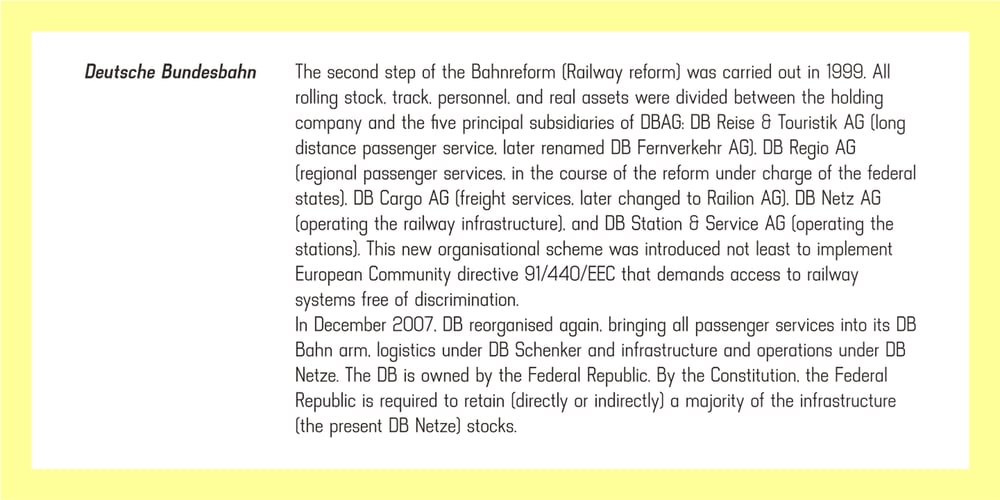
Luzern Font Family was designed by Gumpita Rahayu and published by Gumpita Rahayu. Luzern contains 10 styles and family package options. Inspired by the most common grotesque heights and boxed sans serif typefaces, Luzern Typefaces was built with low-mid contrast sans serif and was designed in quite tall caps height and lower x-height which represents the flavor of the dynamic typefaces and is subtle for the display typefaces. The typefaces comes with five weights, from light to extra bold, plus matching italics in each weights. And Luzern Typefaces is loaded with OpenType features such as some stylistic alternates in uppercase, case-sensitive forms, fractions, and another numerals features such as super and subscript characters, tabular figures, numerator-denominator, etc. It’s highly usable for display text titles such as editorial magazine headline, websites heading, poster, advertising, logo, also it works well for medium body text. It comes with more 400+ glyph support including more latin european diacritics language.